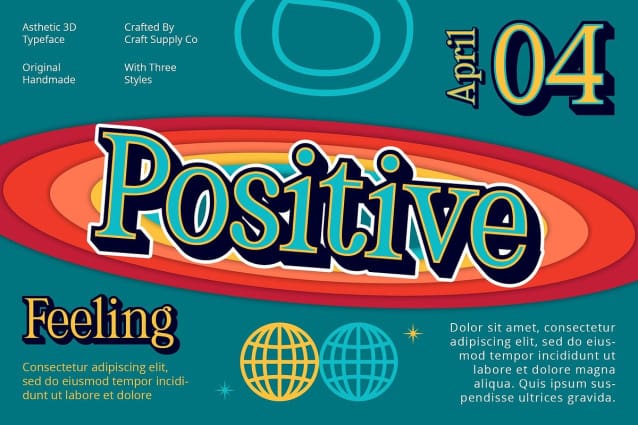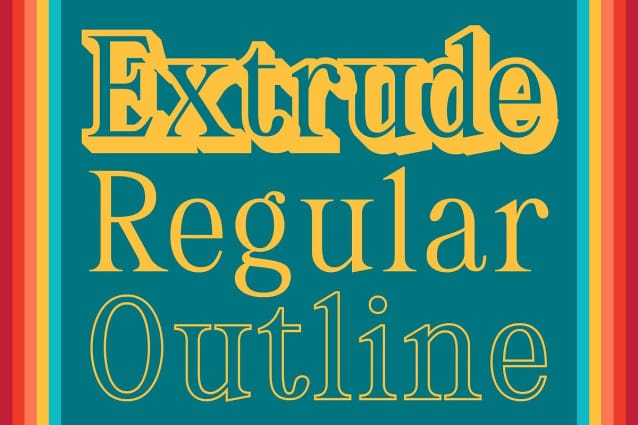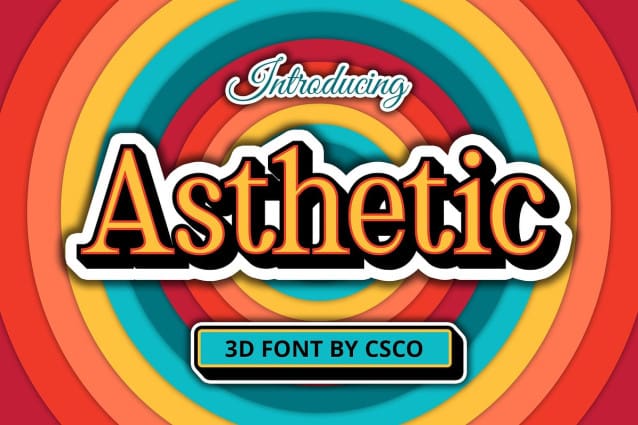
Asthetic 3D Font
Asthetic 3D Font: Redefining Display Typography. Bold High-Contrast Serif Asthetic 3D features a bold serif design with striking high contrast, ensuring maximum visual impact in display applications.
Dynamic 3D Effects The font is enhanced with captivating 3D effects, adding depth and dimension to each character and elevating its visual appeal.
Tailored for Display Needs This font is specifically crafted for display purposes, making it ideal for headlines, banners, and other prominent design elements.
Versatile and Eye-Catching Beyond its stunning appearance, This font offers versatility, making it suitable for various projects where a bold and attention-grabbing serif font is required.
Bold Display Solution This font stands out as a bold and dynamic serif font, perfect for display applications. Its high contrast and 3D effects make it a versatile choice for designers seeking to make a statement with their typography. Step into the world of Asthetic 3D and transform your designs with its captivating visual presence.